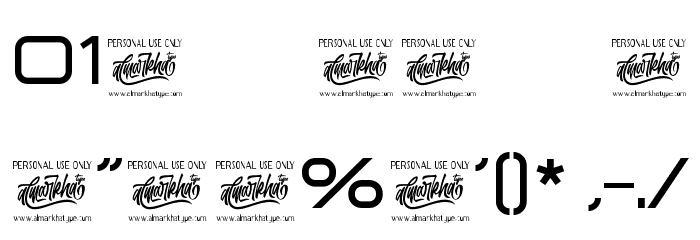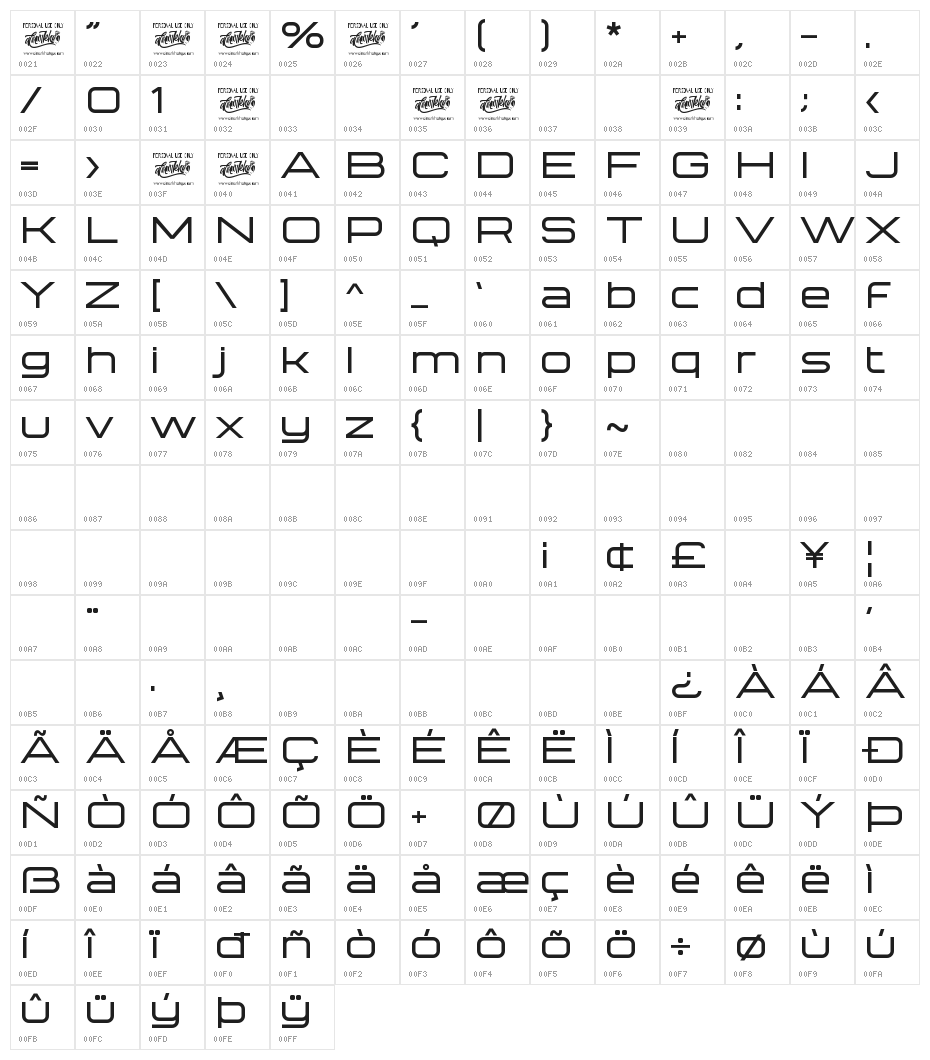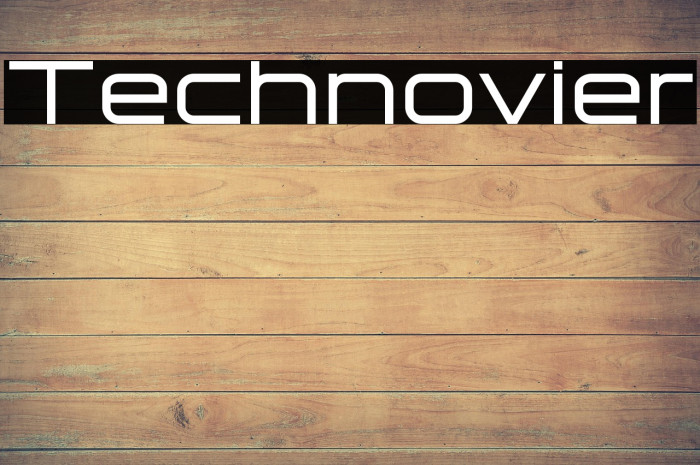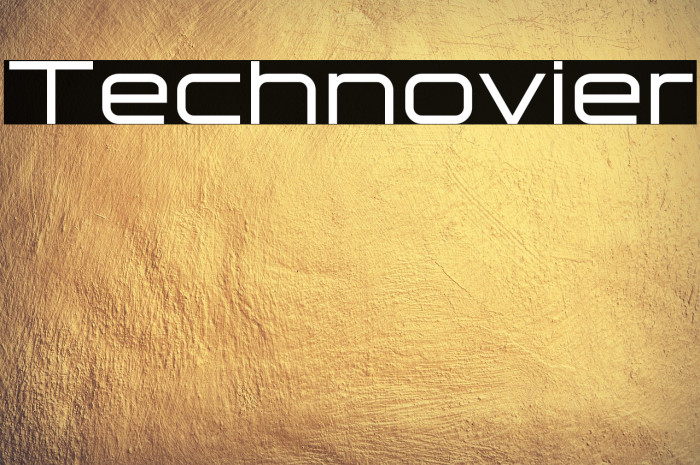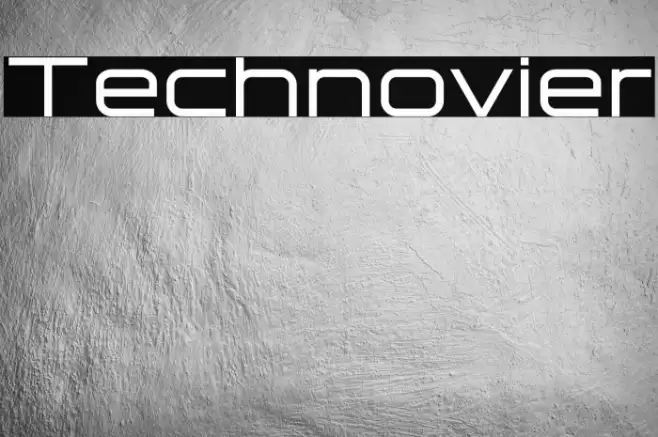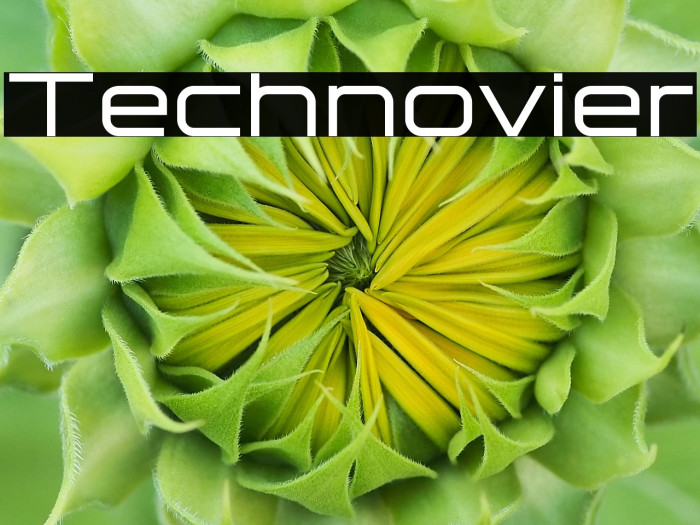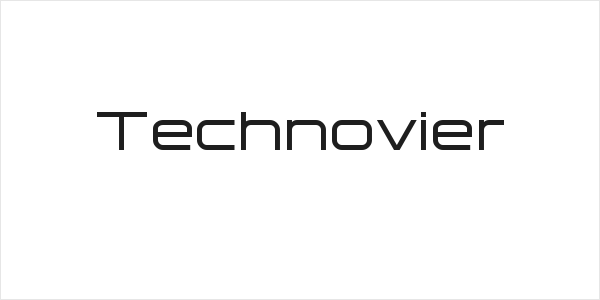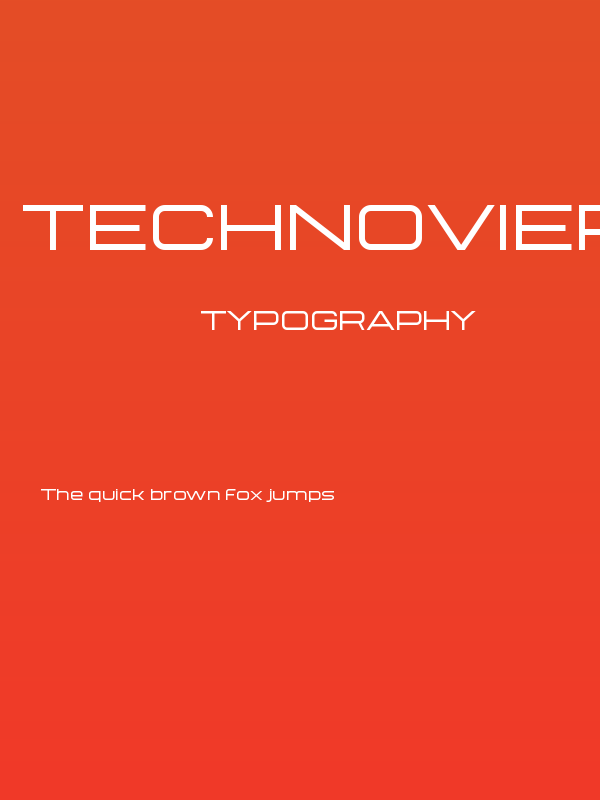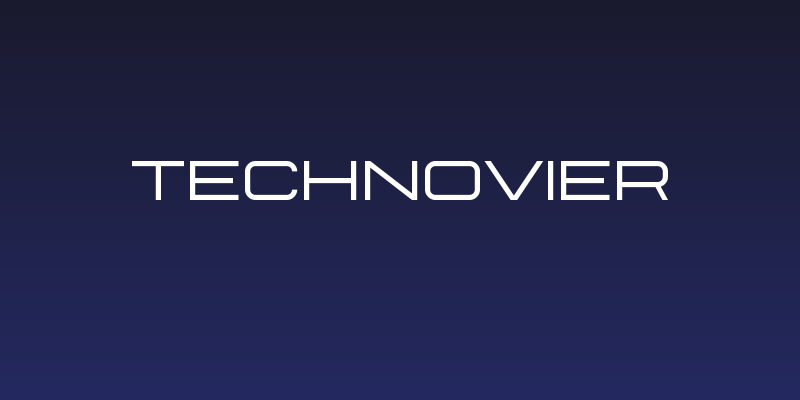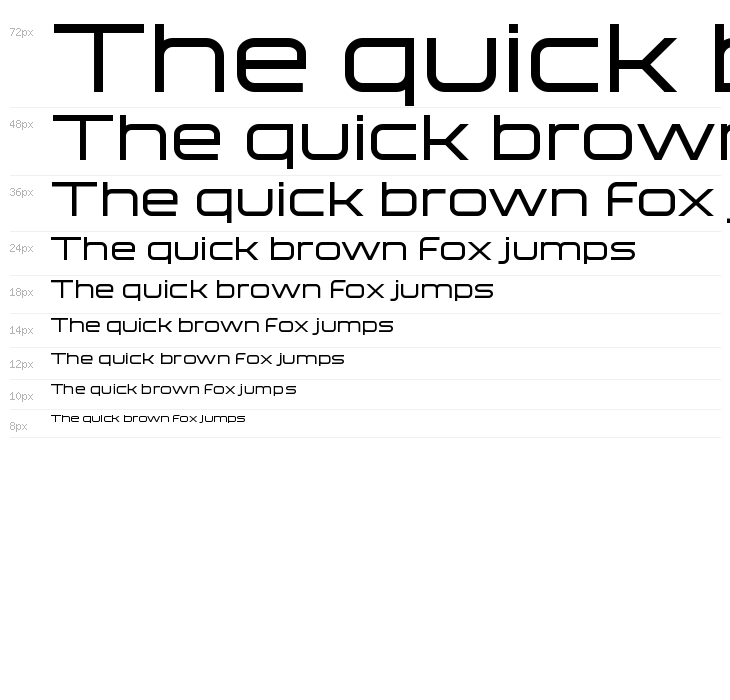
Technovier Font
Technovier Description
This font exhibits a sleek, modern design with a geometric structure. The characters are crafted with precision, featuring clean lines and a uniform stroke width that gives it a futuristic and technical appearance. The uppercase letters are bold and assertive, while the lowercase letters maintain a consistent style that complements the overall aesthetic. The numerals and special characters are designed with the same attention to detail, ensuring a cohesive look across all elements. This font is ideal for projects that require a contemporary and professional touch, such as technology branding, digital interfaces, and modern advertising.
Use CaseHeadlines, Logos, Digital Interfaces
Proposed ProjectsIdeal for technology branding, digital interfaces, modern advertising, and futuristic designs.